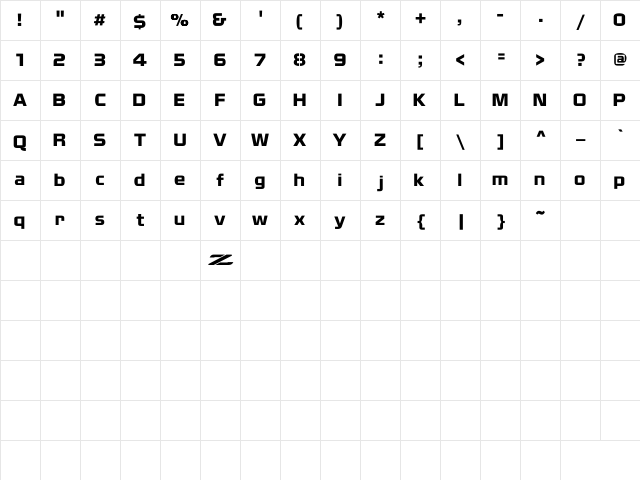
Nissan Regular
Design Context for Nissan Typeface
Nissan is a composed and adaptable typeface that performs quietly and consistently across a wide range of design contexts.